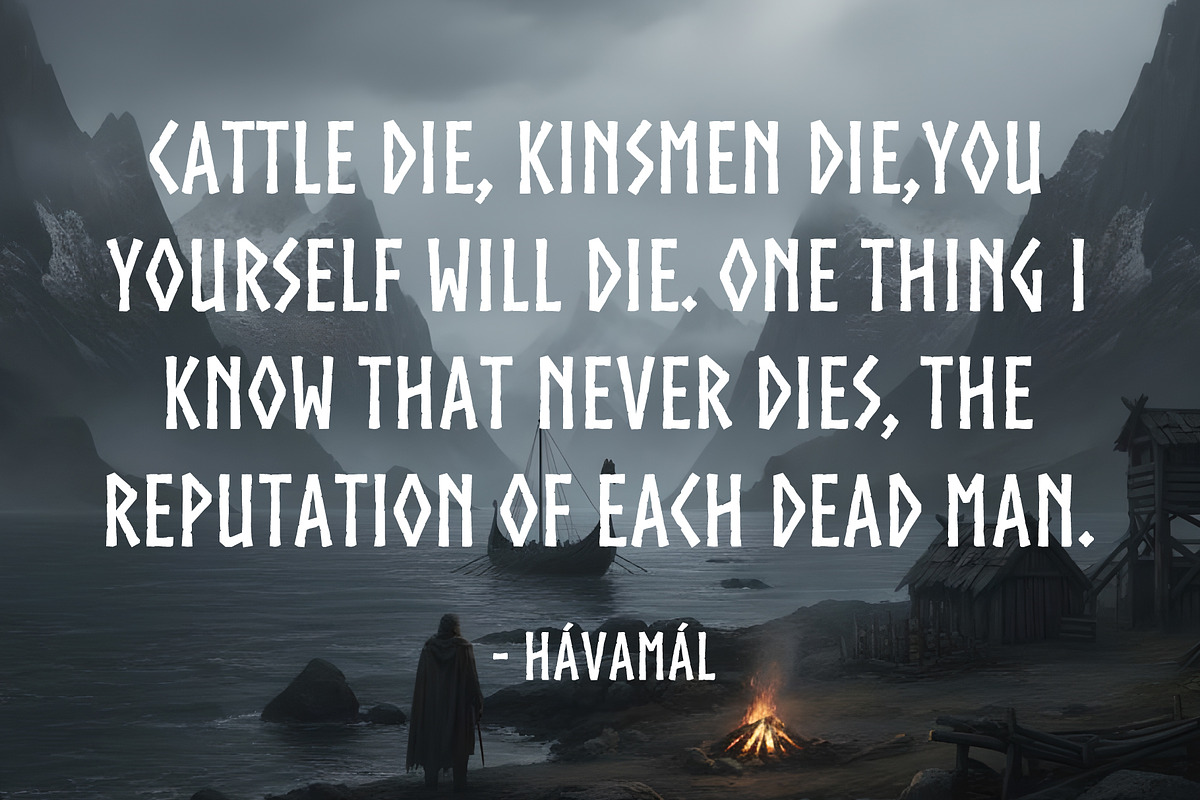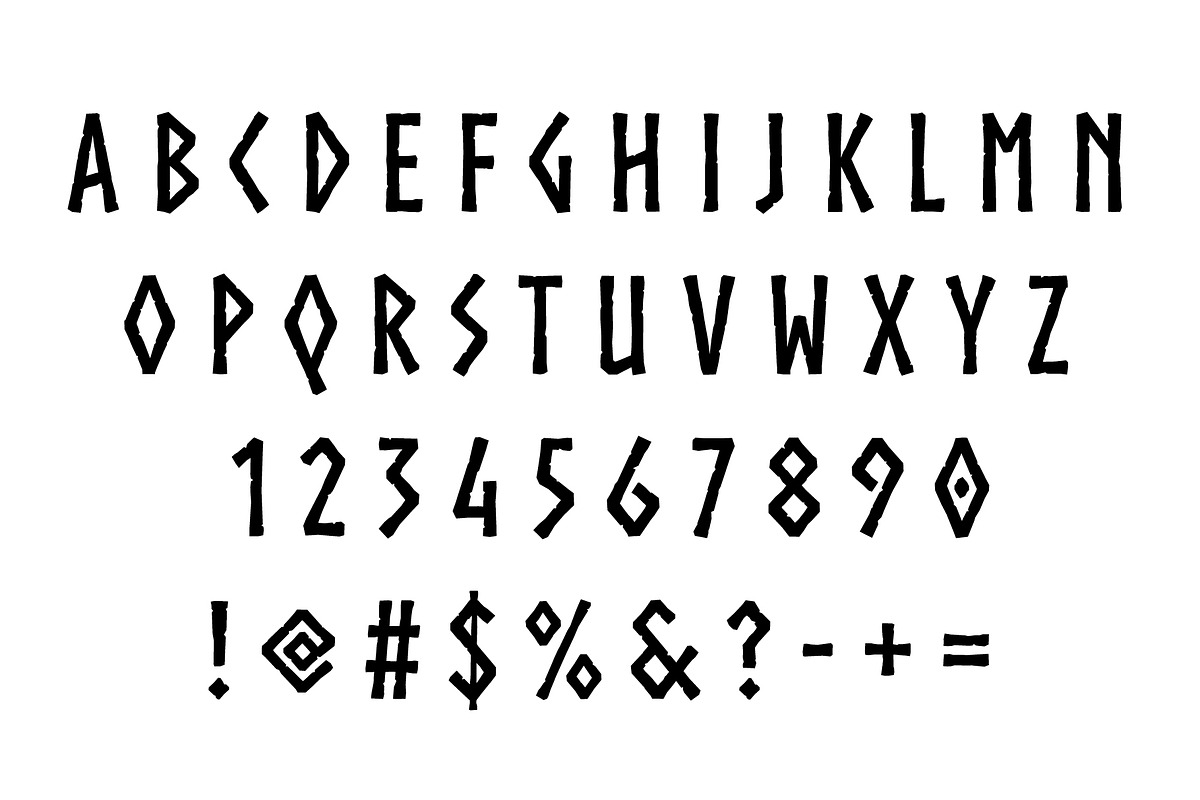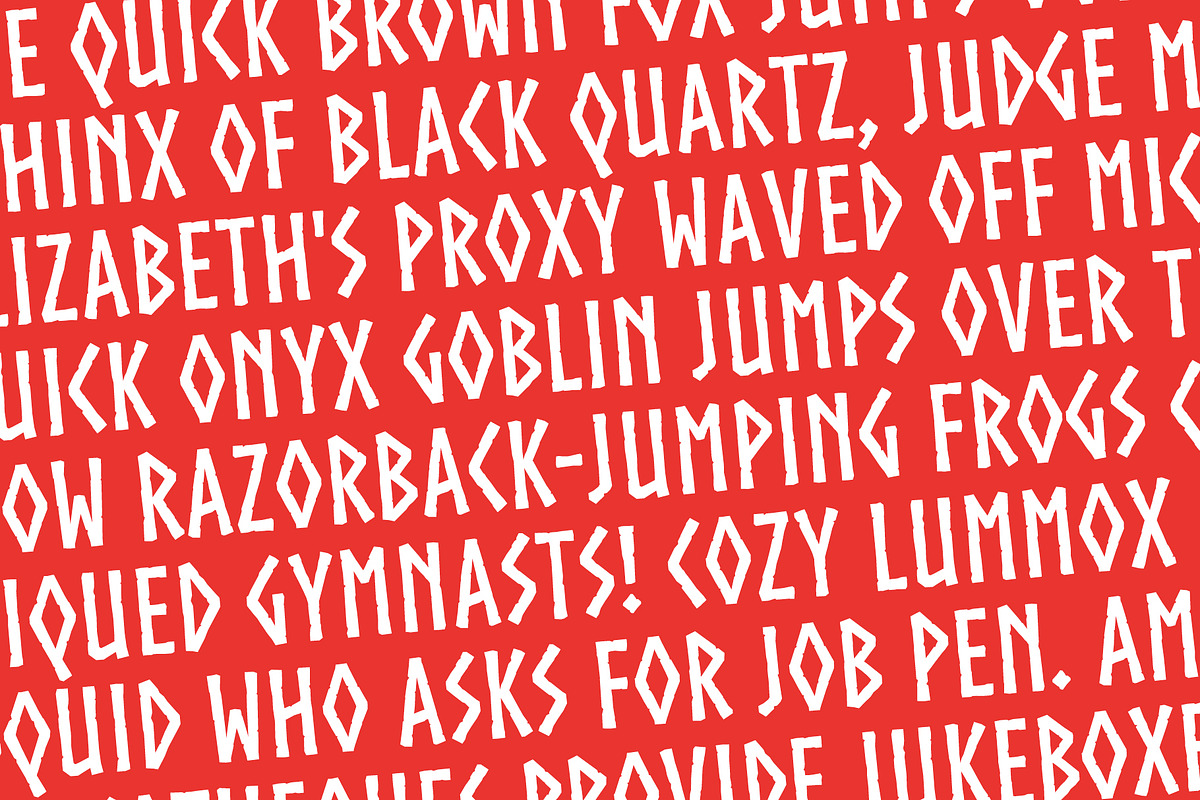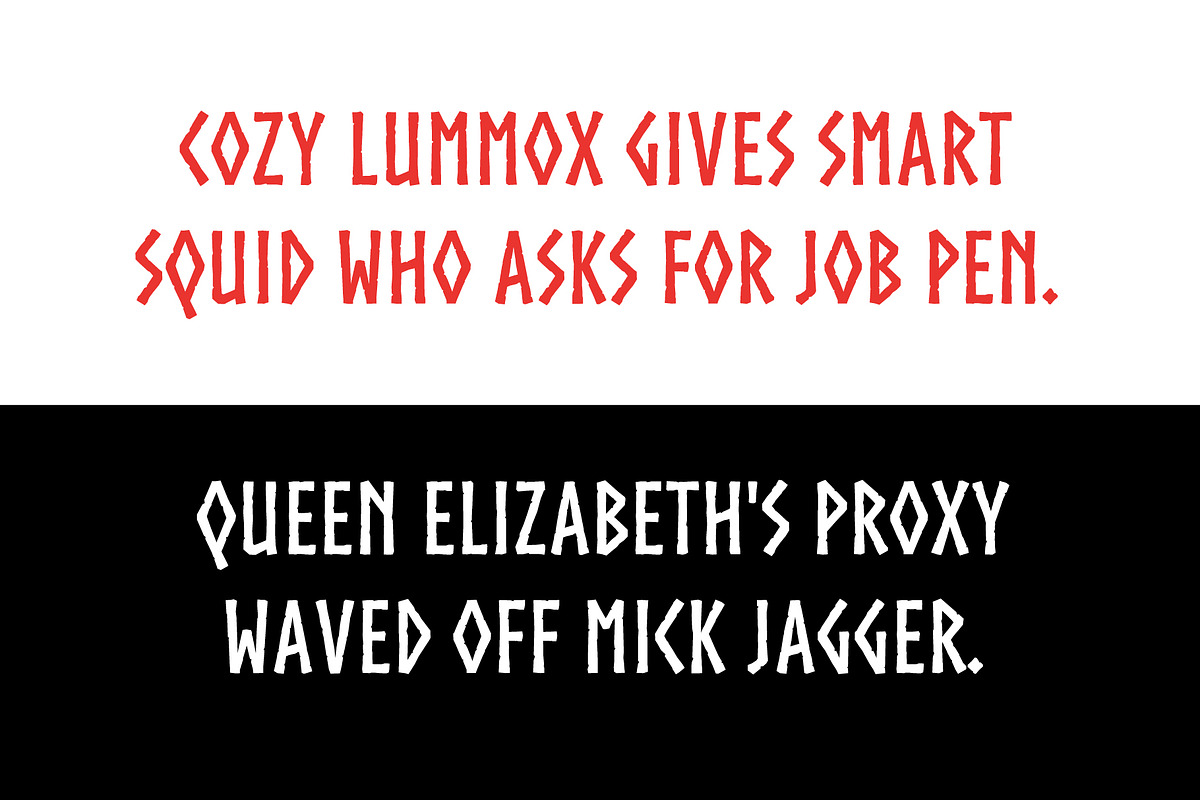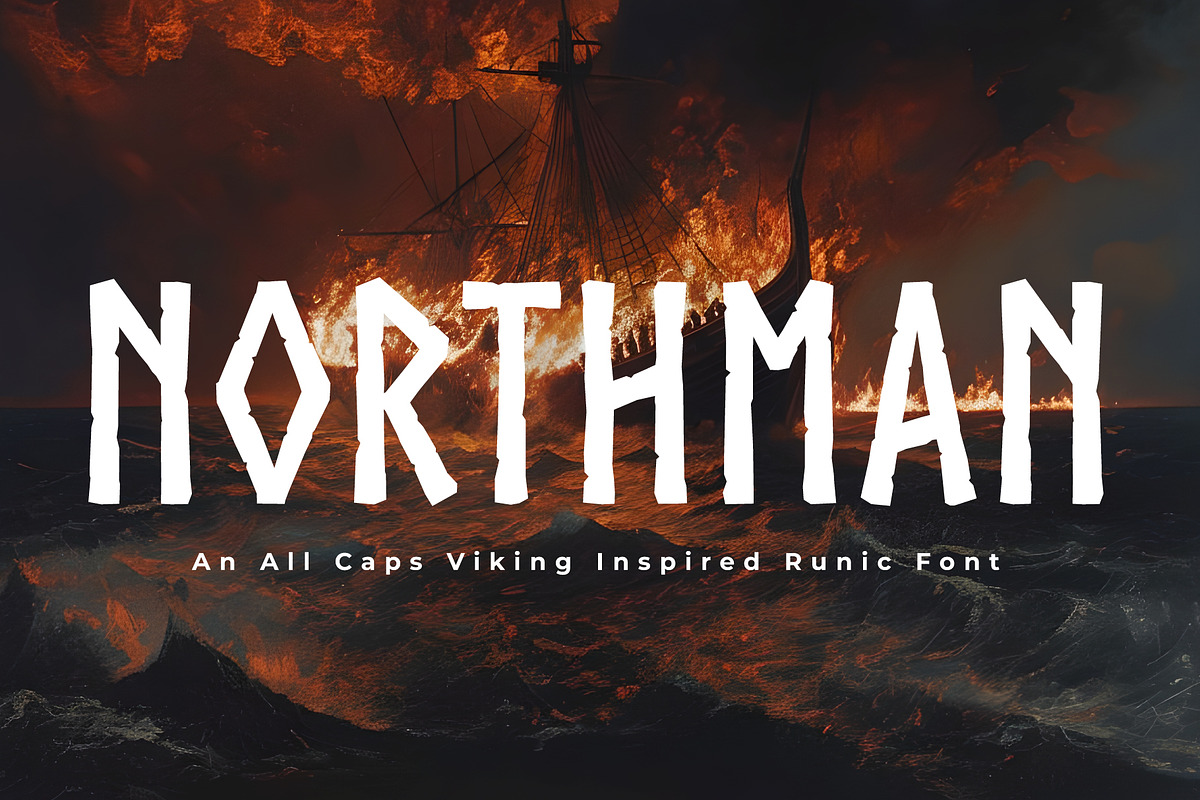
NORTHMAN
NORTHMAN is an all caps Viking inspired runic font forged from angular strokes, sharp cuts, and primal rhythm. Inspired by Norse rune carving and mythic storytelling, NORTHMAN feels hand hewn, weathered, and battle worn, as if carved into wood, stone, or steel.
Designed for impact, this typeface features tall letterforms, aggressive geometry, and intentionally uneven edges that give it a raw, ancient energy. It thrives in bold headlines and short phrases where strength, danger, and legend matter more than refinement.
NORTHMAN works especially well for posters, logos, album art, gaming titles, apparel, book covers, and cinematic graphics. Its visual language evokes fire, sea, iron, and fate, making it ideal for Viking themes, Norse mythology, dark fantasy, and modern designs that need a brutal, mythic presence.
If you are looking for a font that feels powerful, primal, and unmistakably Norse, NORTHMAN delivers a modern interpretation of ancient runic lettering built to command attention.